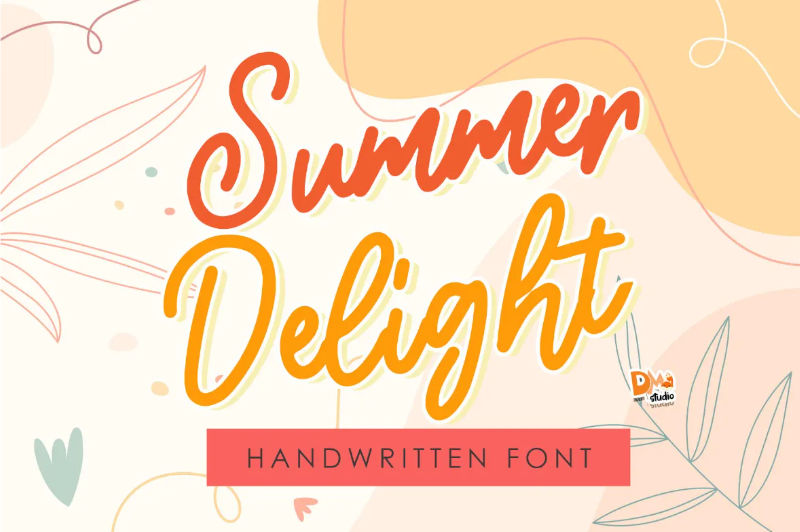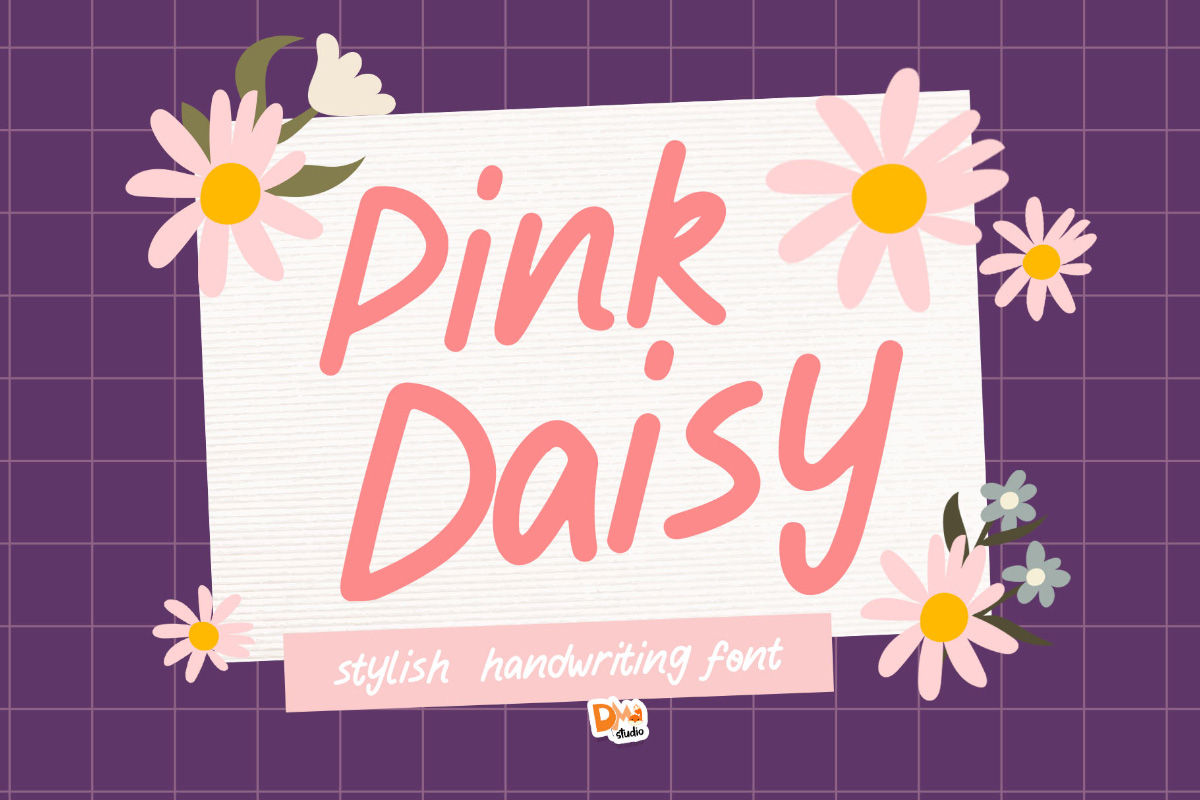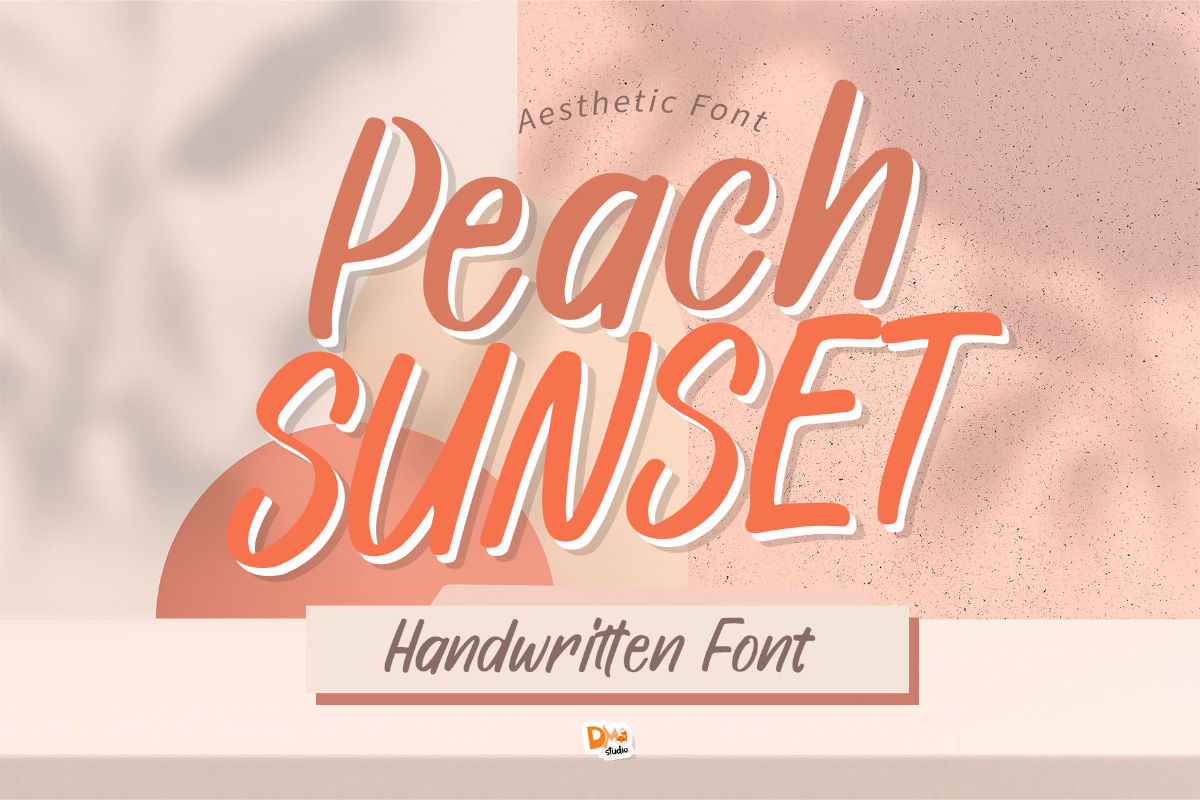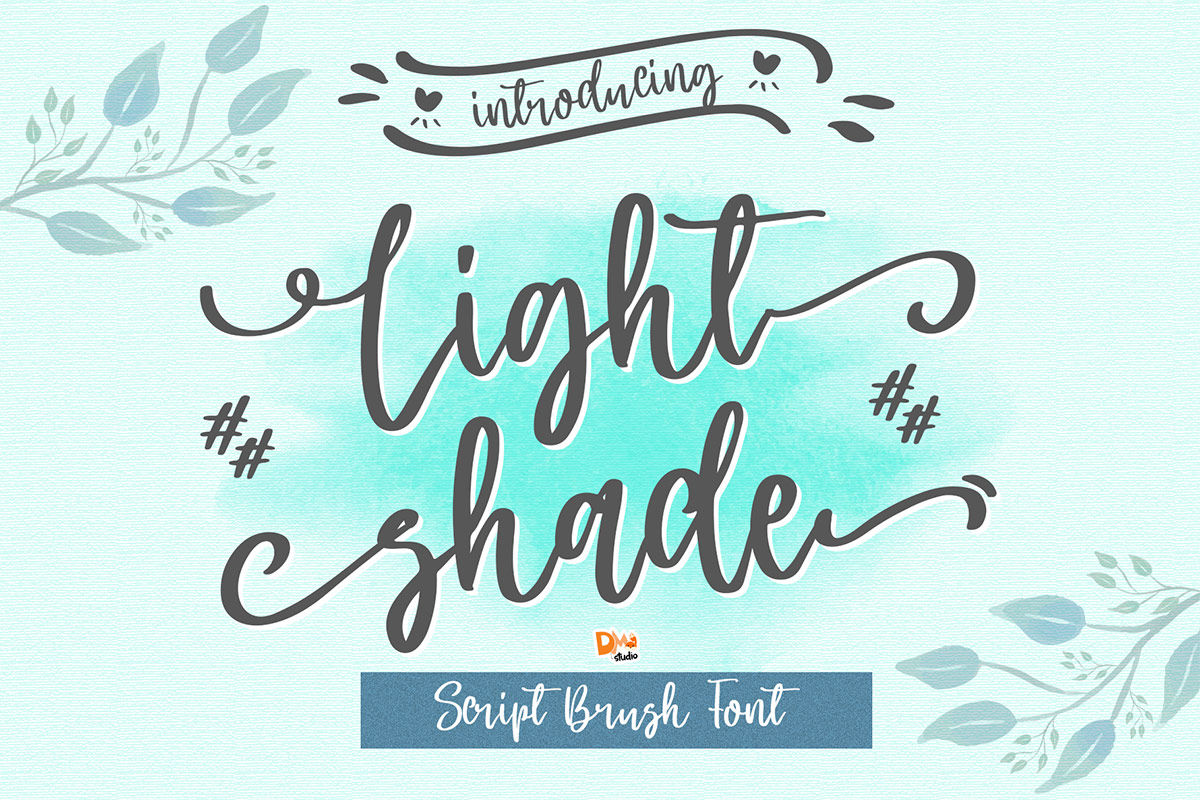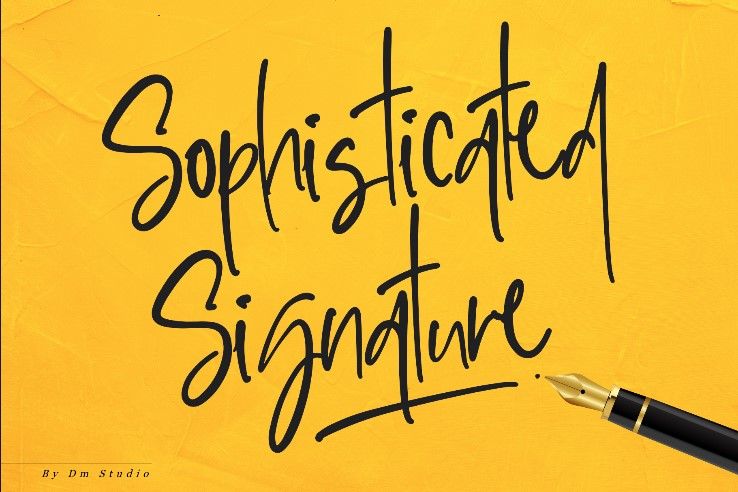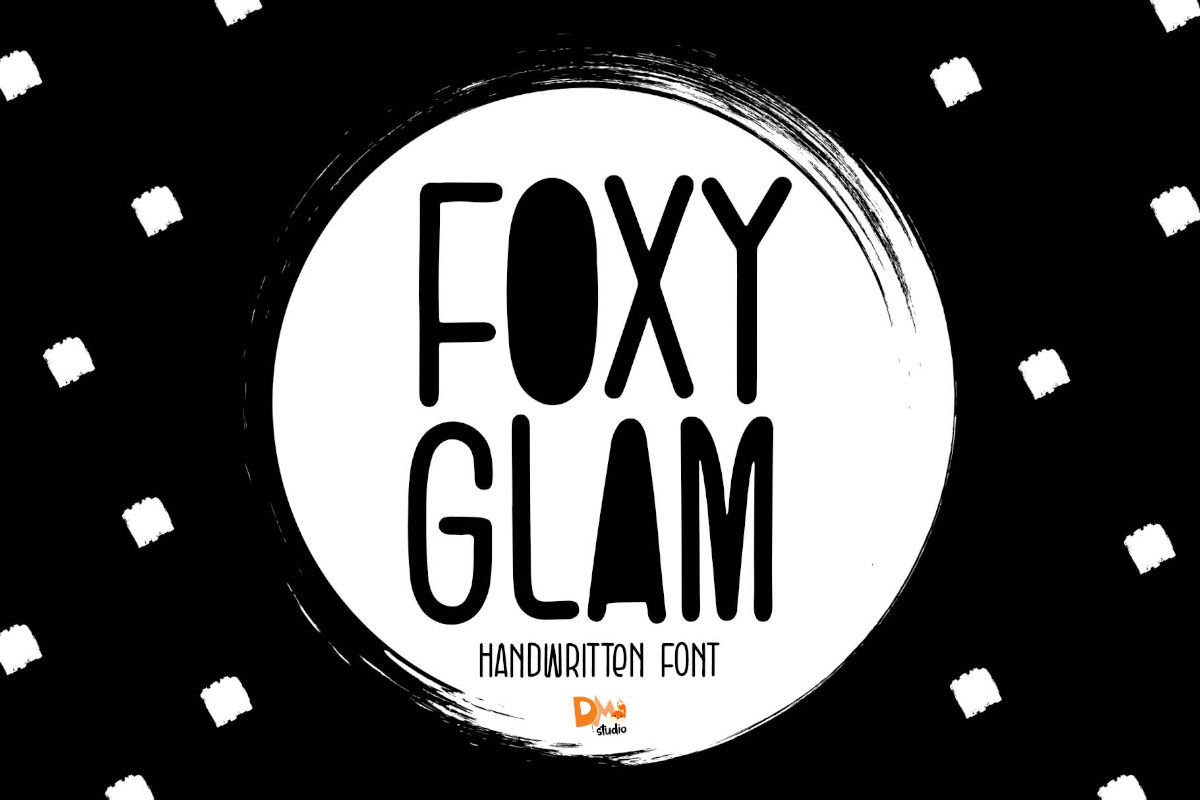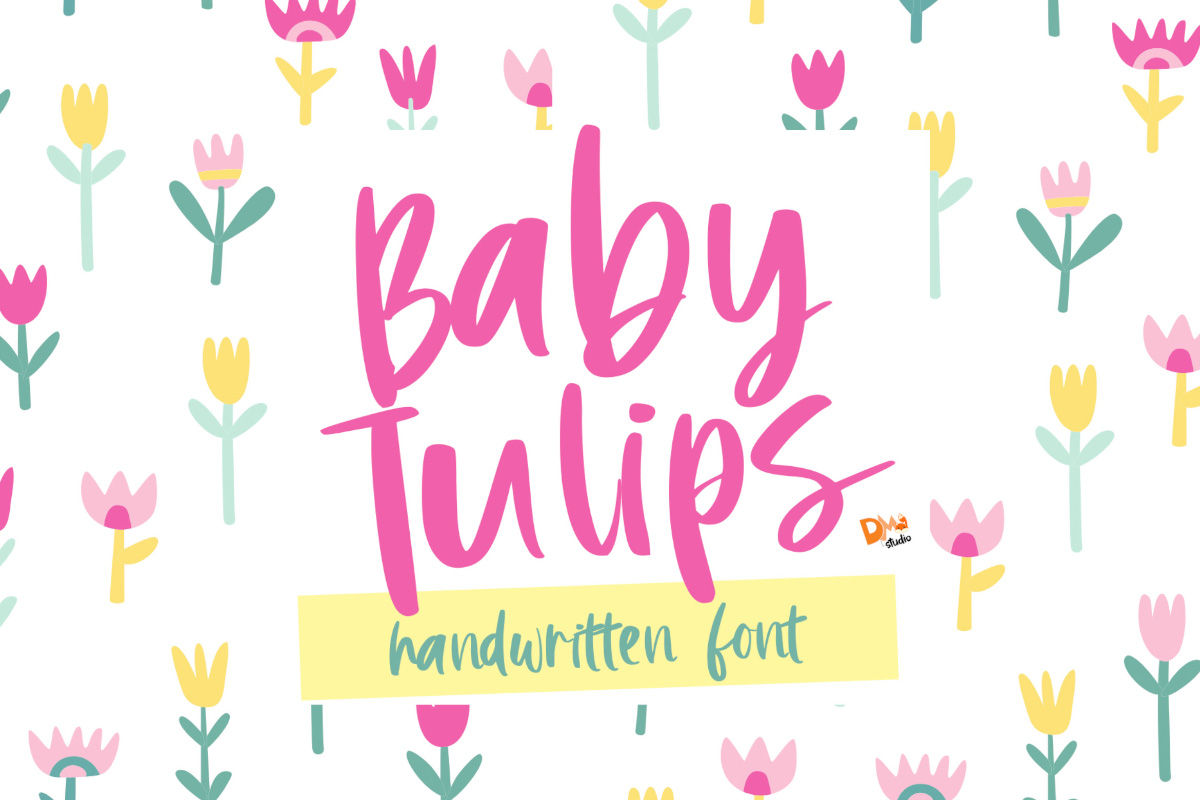
Choosing the best fonts for skincare products is essential for creating a brand identity that feels luxurious, fresh, and trustworthy. The right typography, whether for logos, product names, or taglines, can communicate your brand’s essence. In this guide, we’ll explore top font choices that elevate your product’s visual impact. Keep reading!
1. Rosa
A sleek sans-serif font that radiates sophistication. It’s ideal for minimalist skincare packaging that wants a modern and high-end style.
2. La Rosie
A stylish handwritten font with soft curves, adding a personal, elegant touch to organic skincare labels and branding.
3. Bright South
This graceful script font flows effortlessly, making it perfect for luxe skincare branding that embraces femininity and charm.
4. Foxy Glam
Chic and confident, this bold typeface suits premium rejuvenation skincare lines aiming for a sleek and aesthetic touch.
5. Sparkling Bright
This is one of the best fonts for skincare products that blends elegance and playfulness. It is great for beauty brands that want to feel both refined and approachable.
6. Warm Heart
Soft, inviting, and effortlessly beautiful, this font enhances natural skincare brands looking for an organic as well as gentle feel.
7. Gold Sherry
A script font that radiates warmth, making it perfect for artisanal serum skincare products that feel personal and friendly.
8. Spring Baby
Delicate and airy, this font works wonders for clean, fresh baby and kid skincare packaging with a light and youthful touch.
9. Baby Tulips
Soft and handwritten strokes make this font a dreamy choice for baby skincare brands that embrace purity and botanical ingredients.
10. Sunset Heart
A warm, romantic script that gives a glowing effect that is fitting for products focused on hydration and radiance.
11. Simple Things
Effortless yet stylish, this minimalist script is perfect for skincare brands that embrace clean beauty and simple formulations.
12. Summer Delight
This font looks light, happy, and breezy. It’s great for sun care or refreshing skincare lines that evoke a summer glow.
13. Pink Daisy
Playful yet sophisticated, this handwritten font adds a touch of sweetness to feminine skincare branding.
14. Peach Sunset
With its soft curves and warm energy, this is one of the best fonts for skincare products and is ideal for brands that highlight hydration, glow, and natural beauty.
15. Shadow Blush
A smooth script that feels effortlessly chic is ideal for skincare brands looking to balance softness with boldness.
16. Rochette
Elegant and timeless, this font is a go-to for premium skincare packaging with a refined touch.
17. Sunkiss Heaven
Radiating warmth and positivity, this flowing script is perfect for glow-enhancing skincare lines.
18. Chantily
Romantic and dreamy, this font is a great choice for floral-inspired or spa skincare products.
19. Sachlette
A signature-style font that feels personal and luxurious, great for boutique skincare lines and personalized branding.
20. Light Shade Beauty
A bold yet feminine script with brush-like strokes, this is the fitting font for a skincare brand that adds an artistic edge to modern skincare packaging.
21. Artsy
Creative and free-spirited, this font is perfect for skincare brands that embrace artistic and indie aesthetics.
22. Sophisticated
Chic and sleek, this typeface suits high-end skincare brands that prioritize exclusivity and refinement.